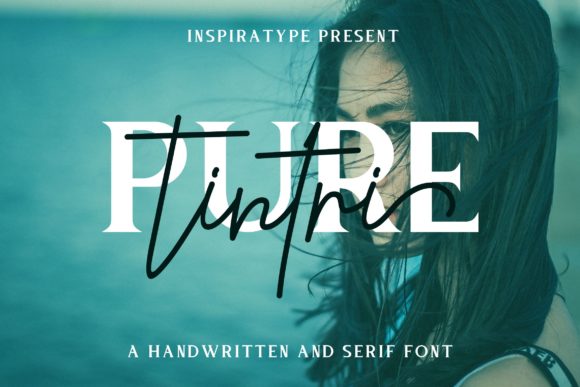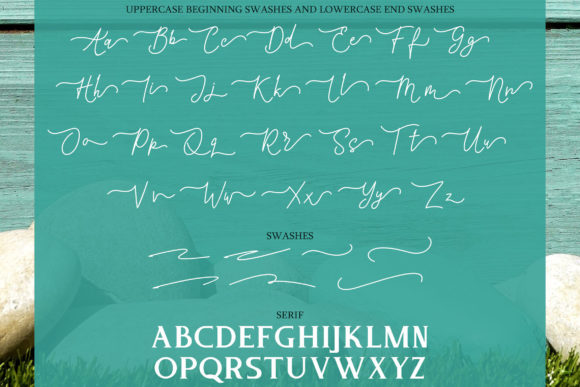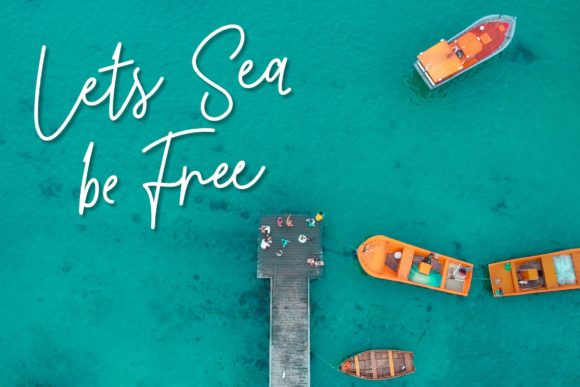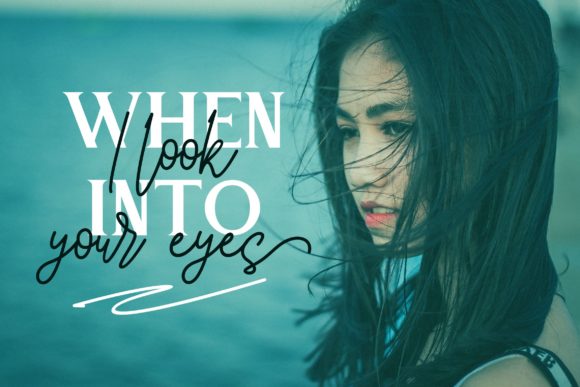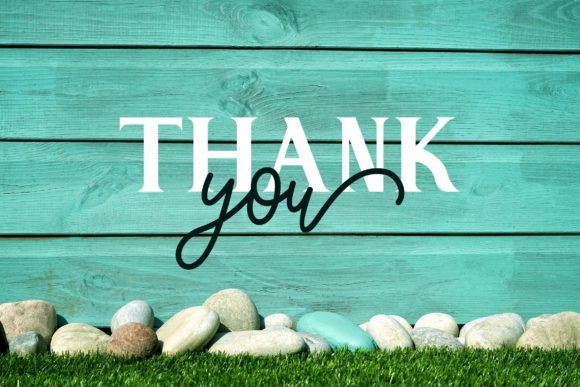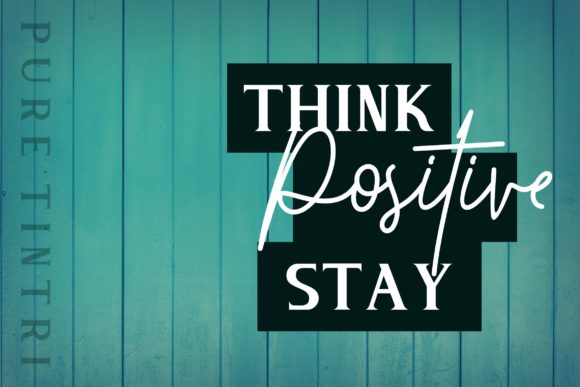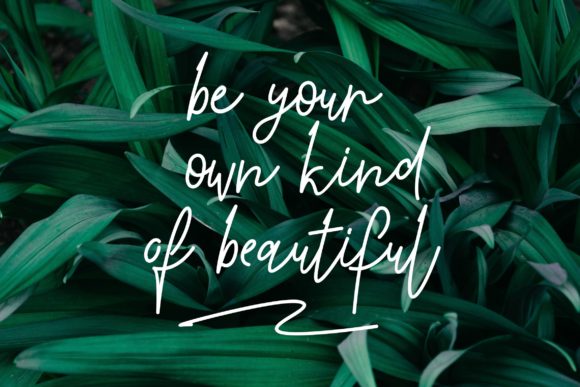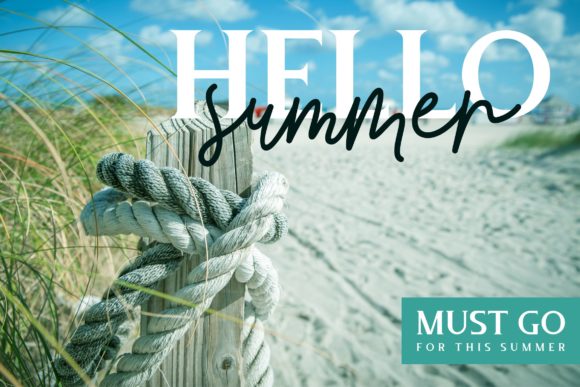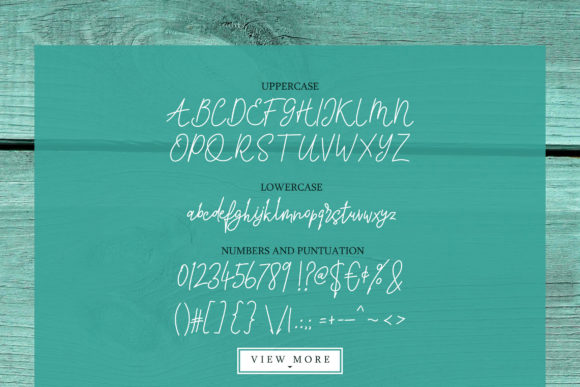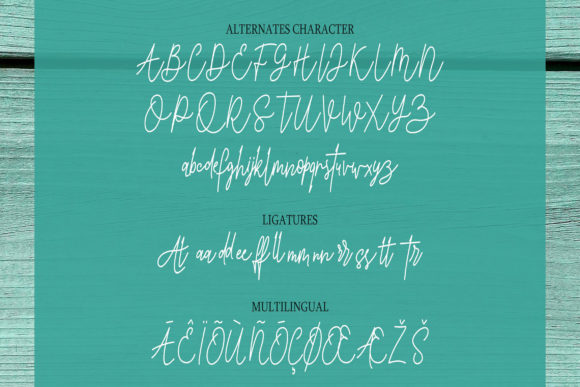
Tintri Pure Duo Font
About Tintri Pure Duo Font
The Tintri Pure is an unique font duo. It includes an elegant script font, and a striking serif font. It was handmade and inspired bu classic posters.